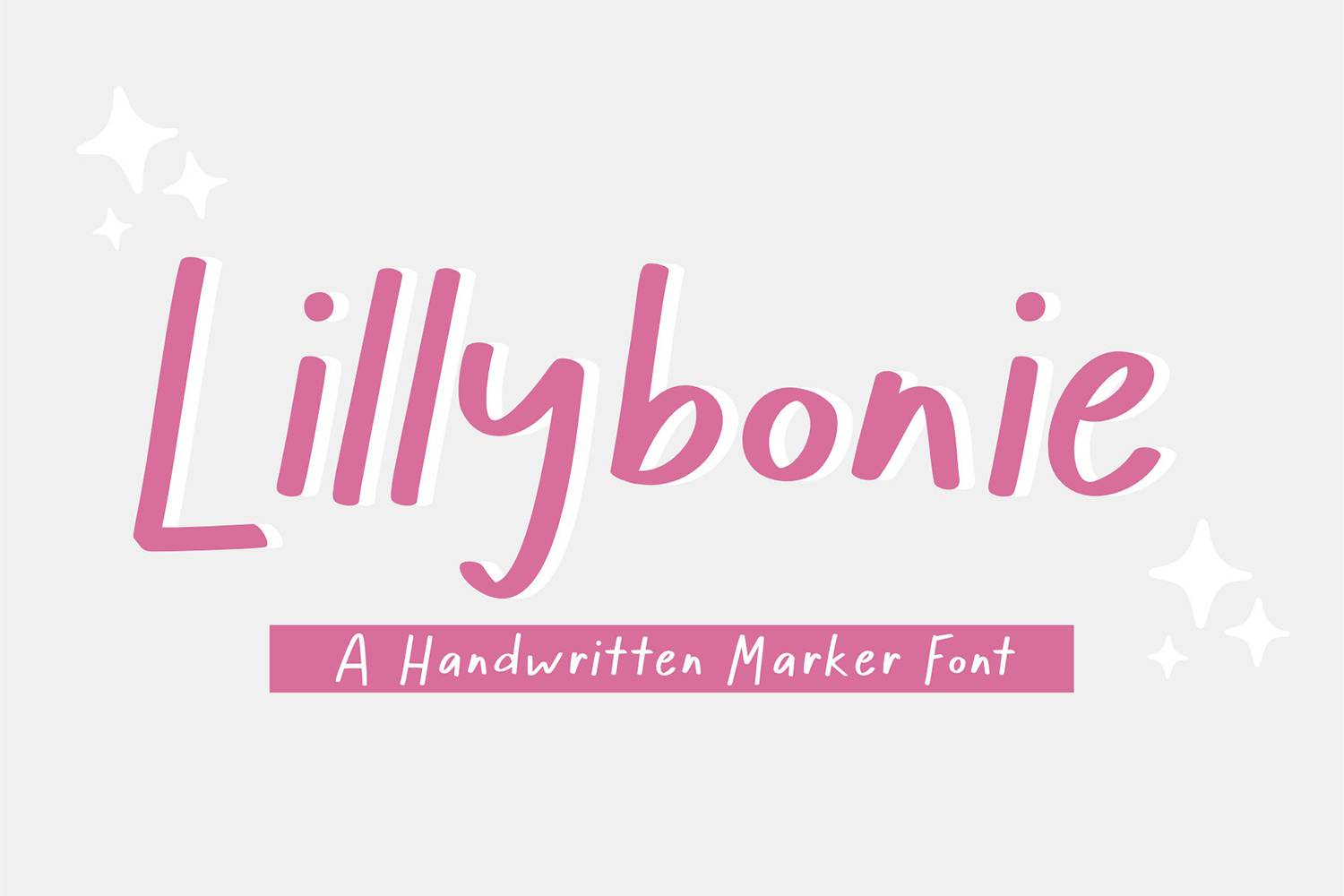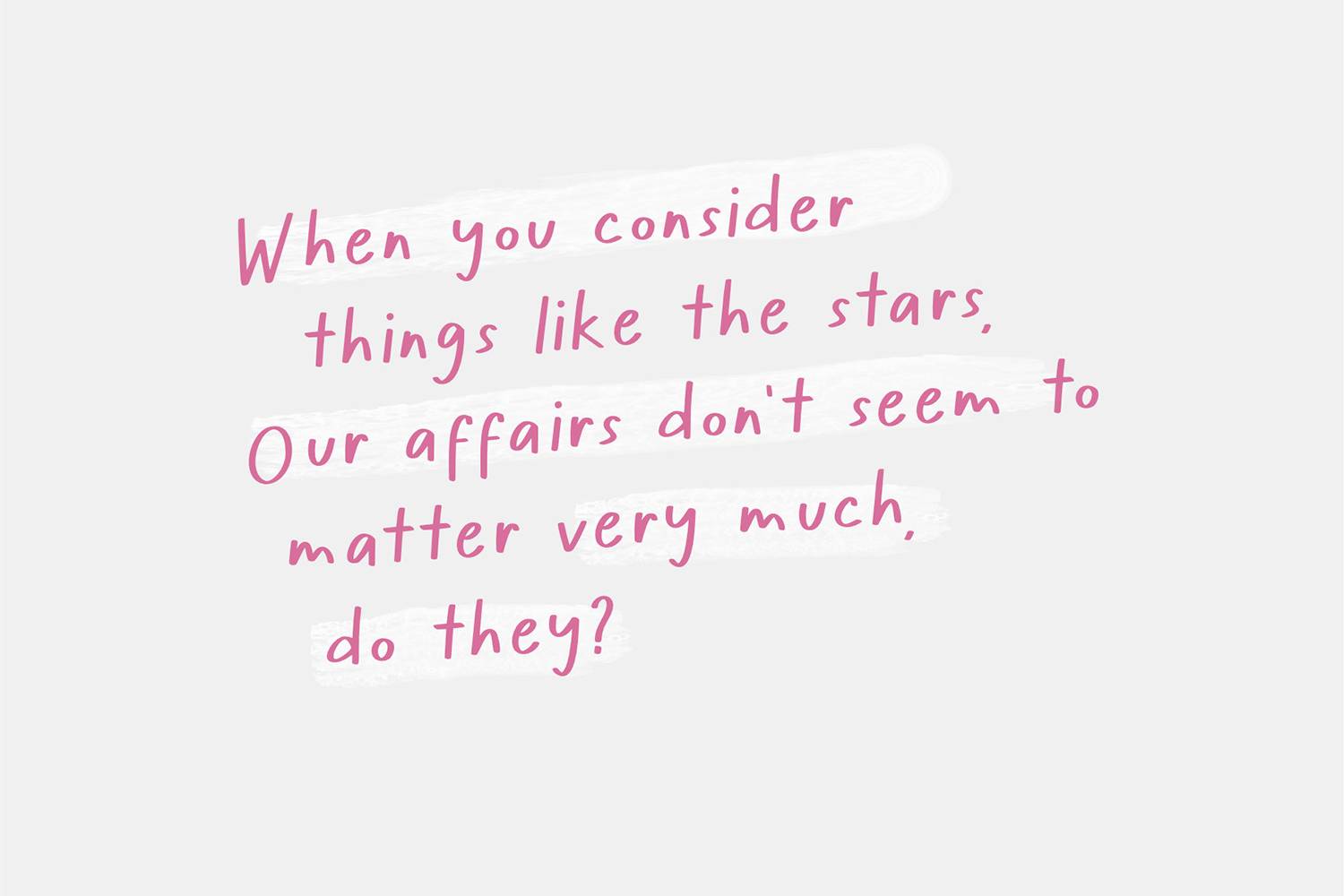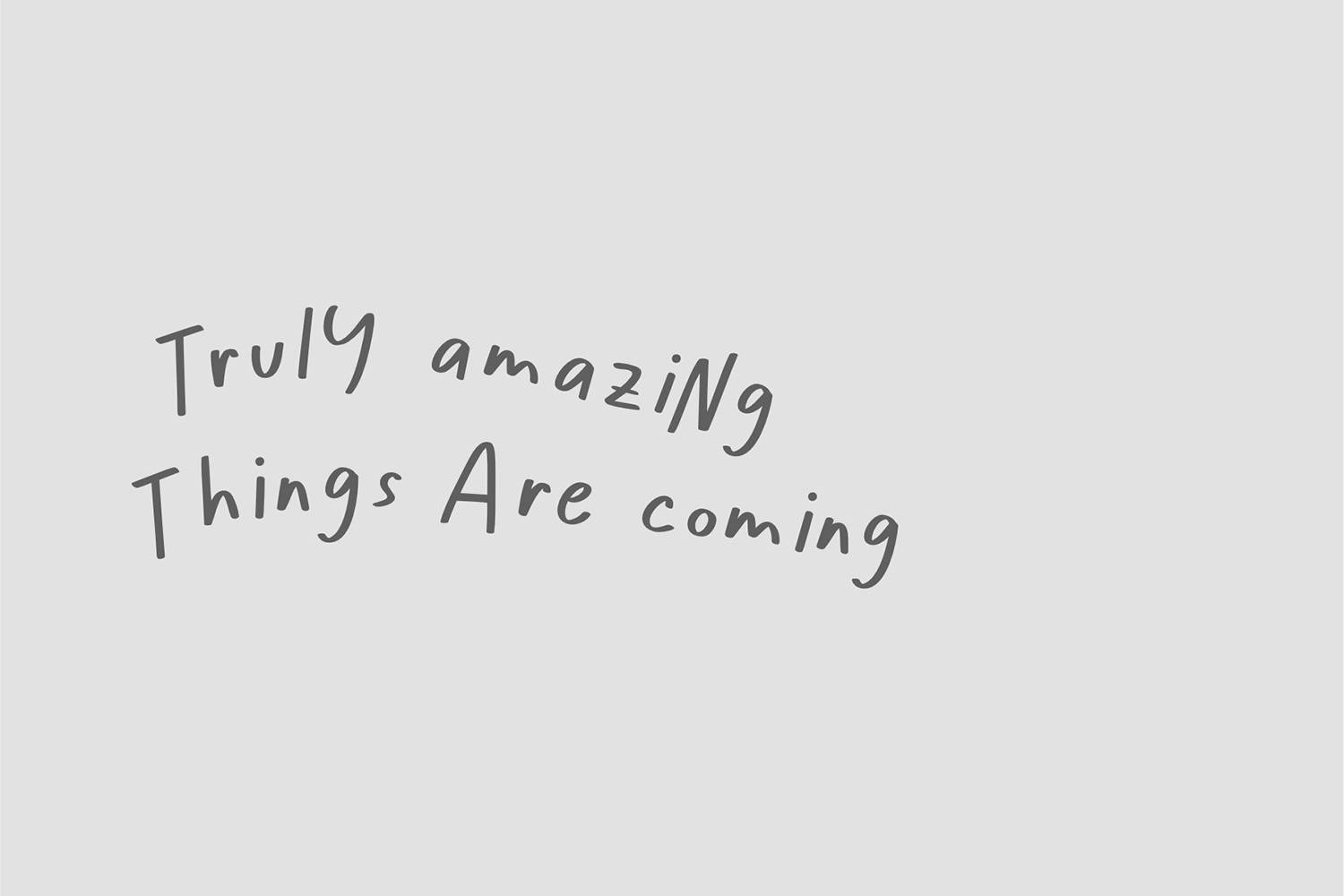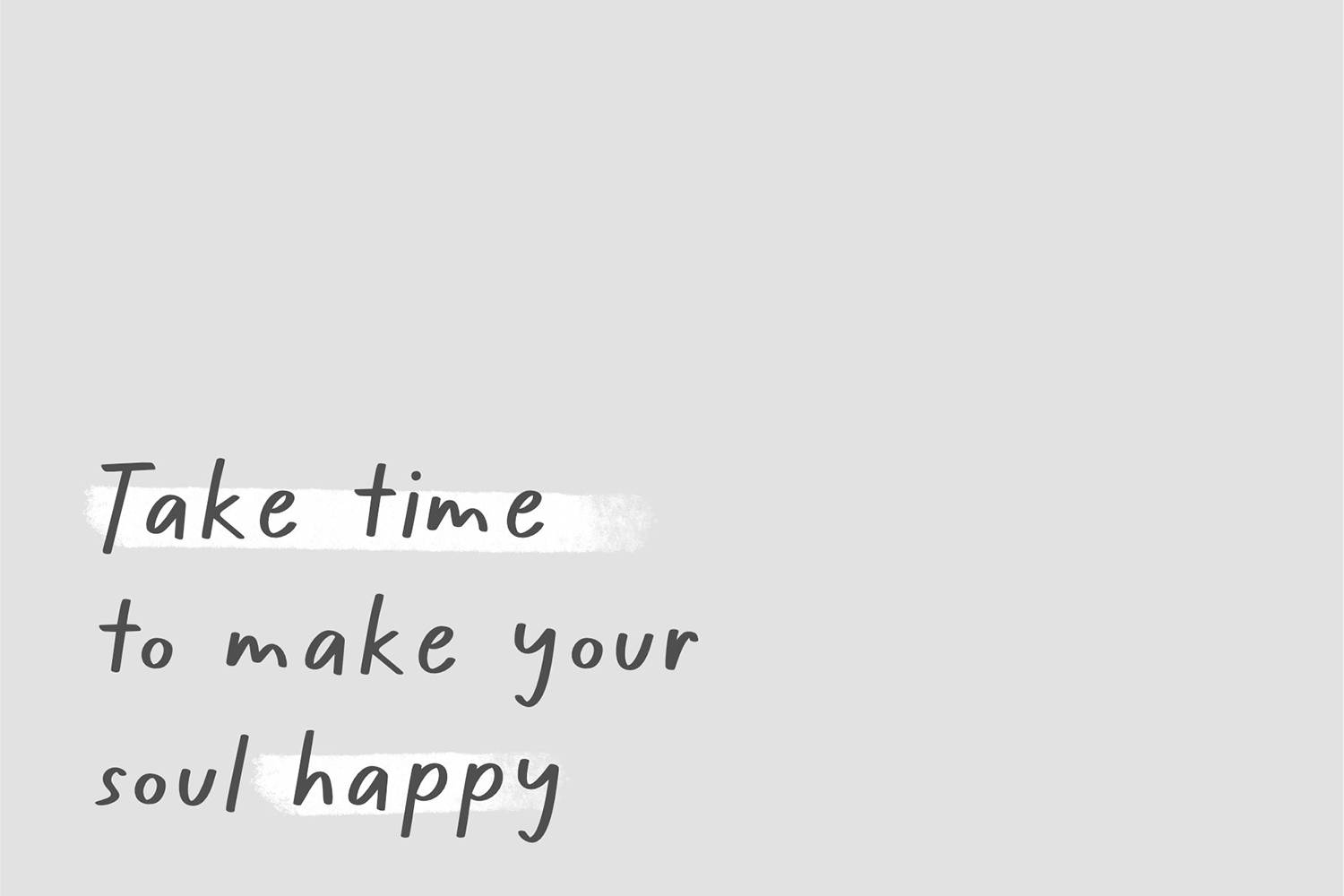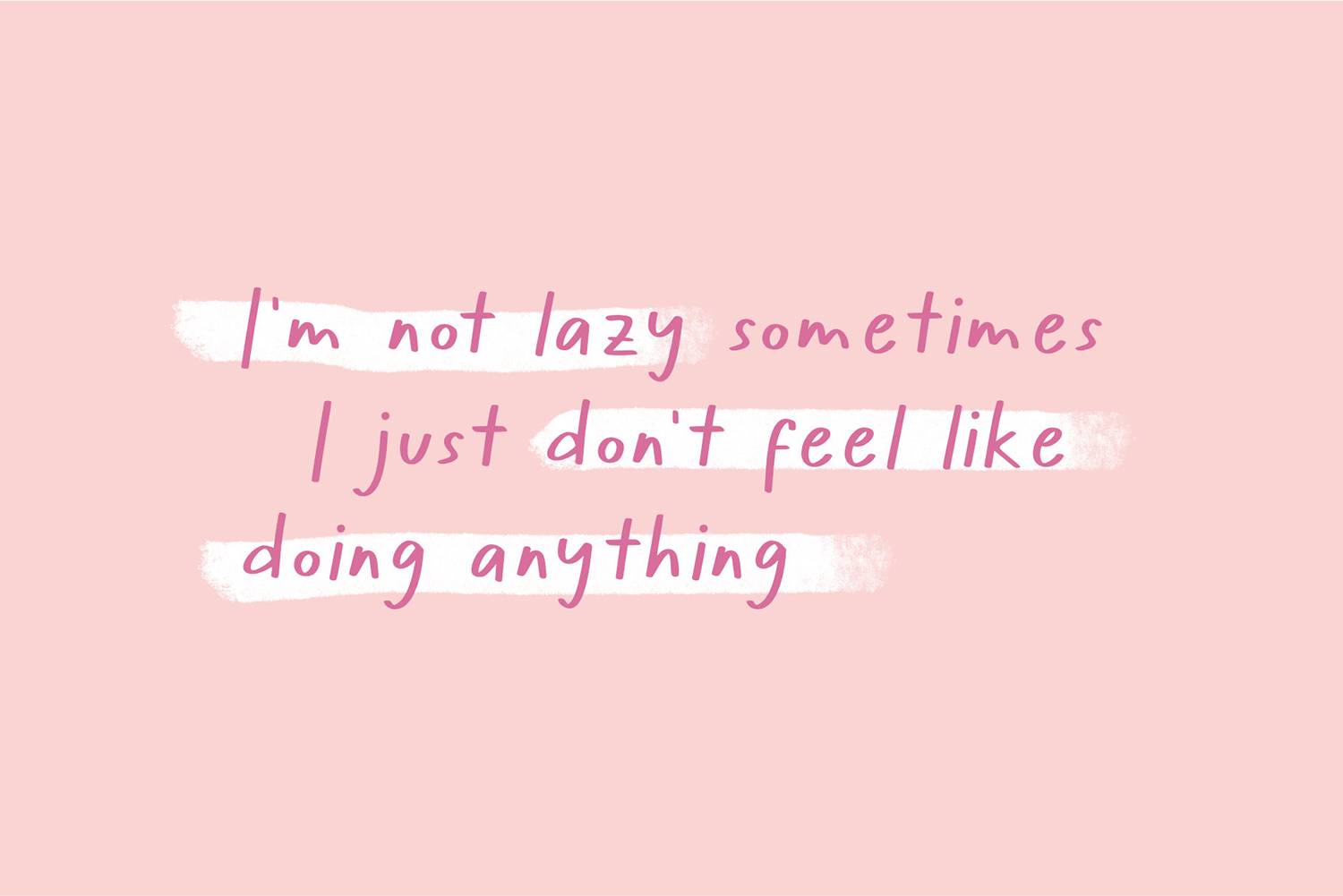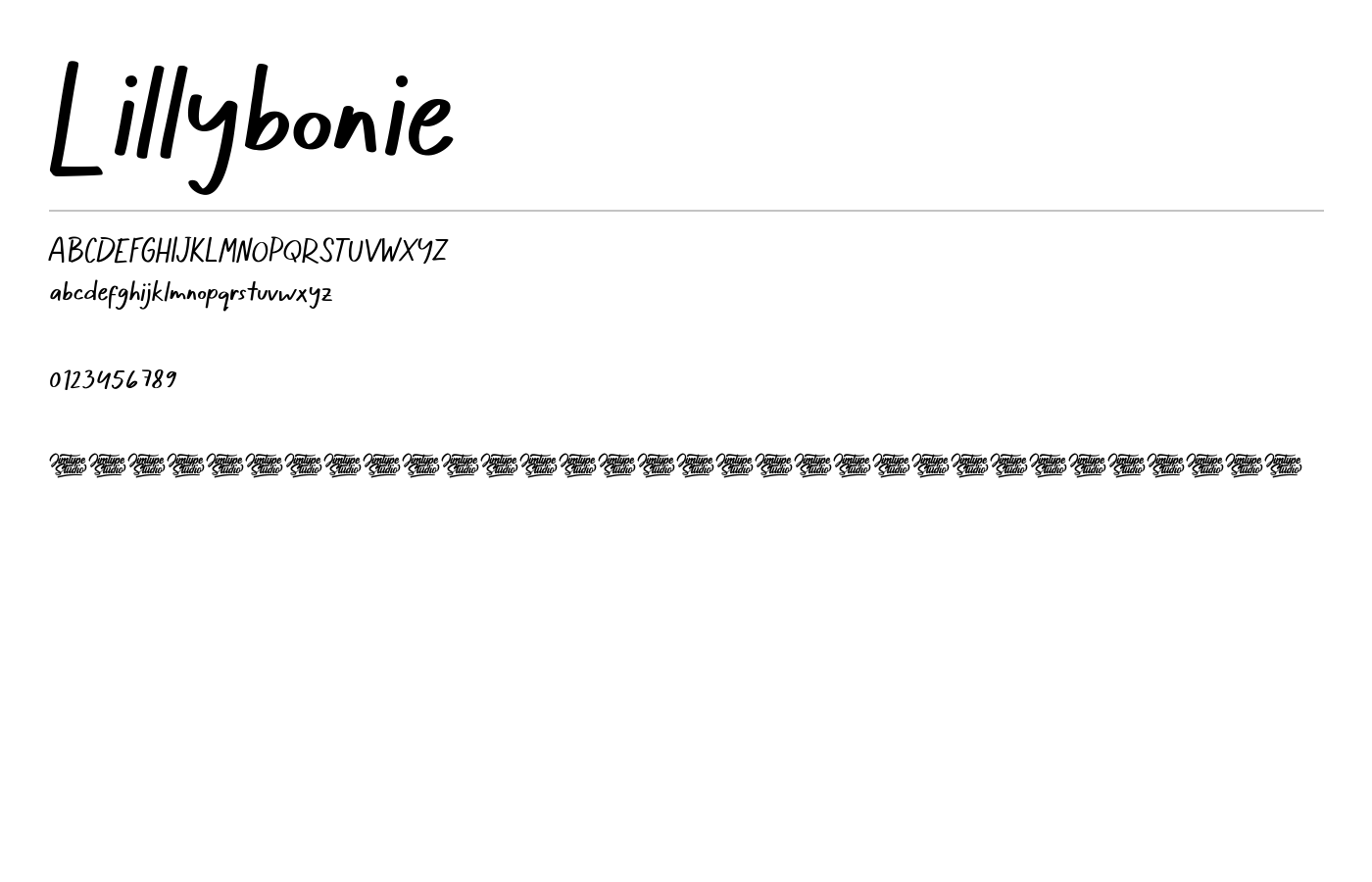
Lillybonie is a playful and casual handwritten sans-serif font featuring slender, slightly irregular strokes that evoke a natural, friendly feel. Its upright, narrow letterforms with gentle curves and a mix of single and double-story characters create an approachable style perfect for personal branding, creative projects, or informal communications. This font works well in logos, social media graphics, and headlines where a warm, human touch is desired.
Lillybonie Font
| Designer | Jimtype Studio |